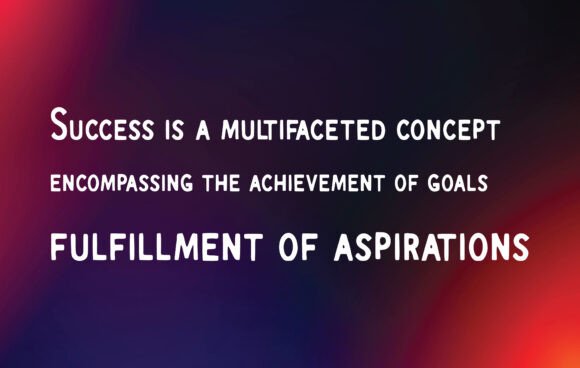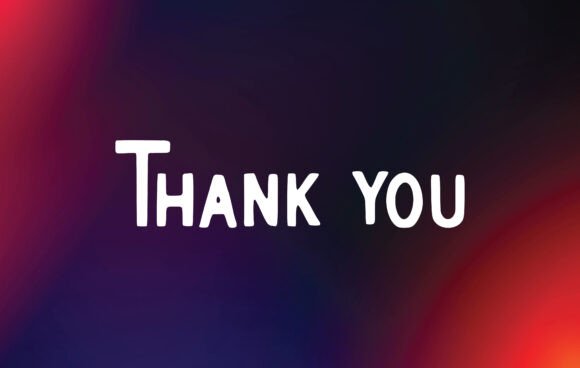
Introduction to Silas Font
Remember that moment when you finally found the perfect font to elevate your design project? The one that made your creative vision come to life? For many designers, that moment is a game-changer. And for those who haven’t experienced it yet, we’re excited to introduce you to Silas Font – a high-quality design resource that’s about to become your go-to favorite.
With its perfect blend of style and versatility, Silas Font is the ultimate design companion. Whether you’re working on magazine headlines, t-shirts, social media posts, or wedding invitations, this font seamlessly adapts to any creative project. Its easy-to-read design makes it perfect for both titles and body text, ensuring your message shines through with clarity and sophistication.
Key Features of Silas Font
- High-quality font design for creative projects, ideal for use in graphic design, digital art, and publishing.
- Includes a comprehensive character set, covering a wide range of languages and scripts.
- Designed with a unique, modern aesthetic, featuring clean lines and elegant typography.
Honest Review: Silas Font
As a designer, I’m always on the lookout for high quality design resources to elevate my creative projects. Recently, I had the chance to work with Silas Font, and I must say, it’s been a game-changer.
What works well: ✨ The font’s sleek and modern design makes it perfect for a wide range of creative projects, from graphic design to web development. The transparent background option also gives me the flexibility to use it on any color scheme or design element.
- High quality: The font is crisp and clear, making it perfect for both print and digital applications.
Limitations: ⚠️ While Silas Font is an excellent design resource, I did find it a bit limited in terms of font styles and variations. For more complex projects, I may need to supplement with additional fonts.
Overall impression: Silas Font is a fantastic addition to any designer’s toolkit. Its high quality and flexibility make it a must-have for any creative project. While it may have some limitations, the benefits far outweigh the drawbacks.
Tips for Getting the Most Out of Silas Font
Use Silas Font with a transparent background to create a clean and modern look.
Experiment with different font sizes and styles to add visual interest to your design.
Combine Silas Font with other design elements, such as images and graphics, to create a cohesive look.
Silas Font is ideal for:
Creating eye-catching headlines and titles
Designing modern logos and branding materials
Adding a touch of elegance to wedding invitations and stationery
Enhancing the visual appeal of business presentations and reports
Alternatives to Silas Font
Noto Sans is a high-quality sans-serif font ideal for designers working on creative projects requiring a clean and modern design resource. It is available for free download and features a transparent background, making it perfect for designing logos and branding materials. Compared to Silas Font, Noto Sans has a more streamlined look, making it suitable for digital applications.
Alex Brush is a high-quality script font designed for creative projects that require a touch of elegance and sophistication. It features a transparent background, making it easy to use on any design resource. As compared to Silas Font, Alex Brush has a more cursive and flowing design, making it perfect for designing invitations and wedding cards.